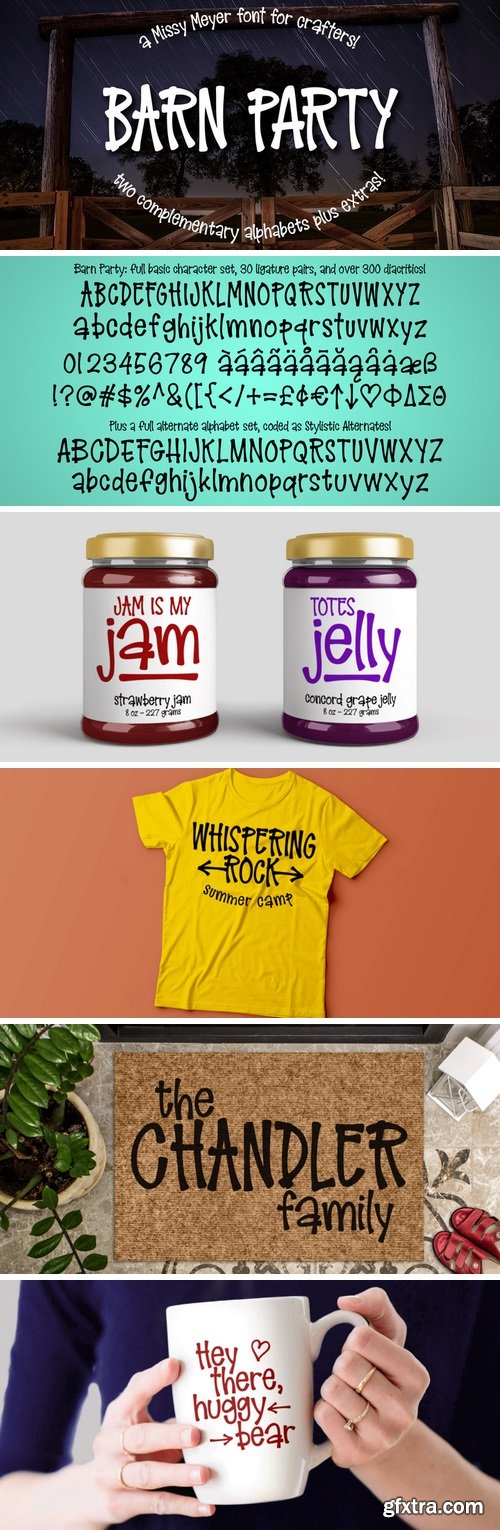
Barn Party Font
I'll admit right off the bat here -- I've never been to a party in a barn. I don't even know if they still do barn dances and parties, or if that’s something out of the musical Oklahoma! or something. But this font gave me kind of a homey, rustic feel, so the name felt right!